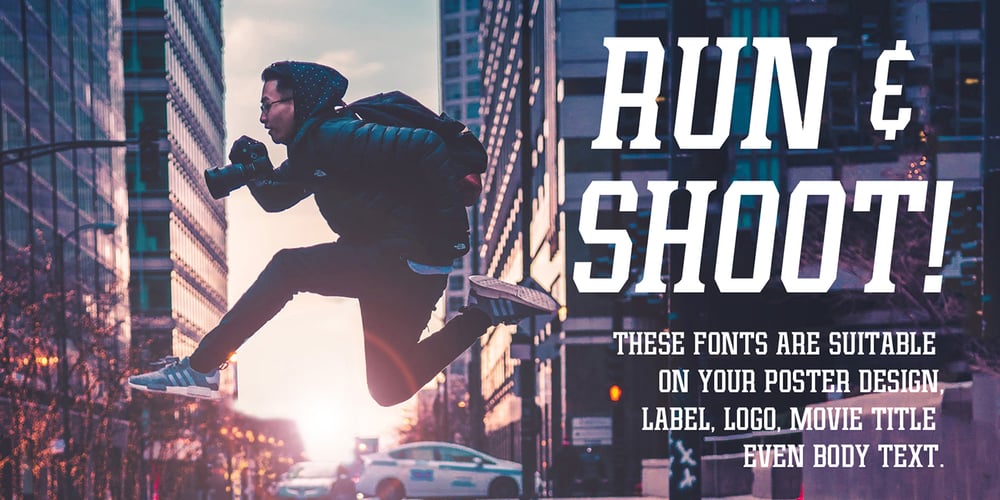
Leophard Font Family was designed by Ahmad Ramzi Fahruddin and published by Arterfak Project. Leophard contains 6 styles and family package options. Create a great combination design with this font family! Leophard font family is a modern slab serif that is inspired by sporty design and vintage style. There are 6 different styles that you can apply in your design projects. This font is made with tenacious basic shapes, the visuality of strength, old school movement, and modern minimalist style. – Regular style – good for your titles, sub-headlines or body text for readability. – Bold style – recommended for your titles, naming, labels or logos. – Bold inline style – is cool for your big typographic designs that are showing the precision of the shapes. – Outline style – good for your additional text, or minimalism design purposes. – Shadow style – suitable for vintage logos, minimalist effects, and titles. – Stencil style – inspired by street art and letterpress design. Recommended for design project which visualizes strength and movement. Make a great combination on your label designs, brand, poster headlines, movie titles, storefront, monograms, sport designs and merchandise design.